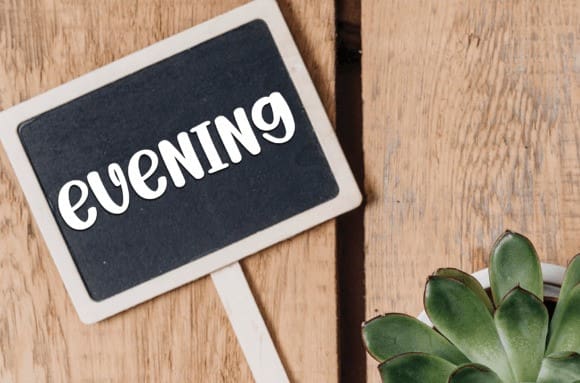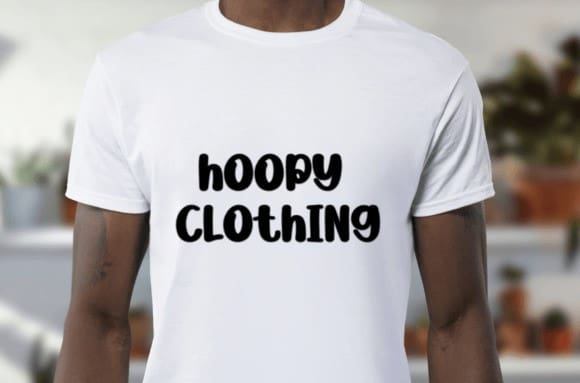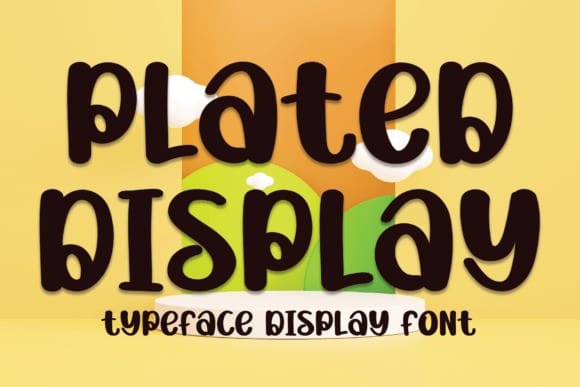
Plated Display Font
Plated Display Font is a sweet and friendly handwritten display font. Cute and playful, this font is ideal for writing wedding invitations, cards, or any other design that might need a joyful touch!